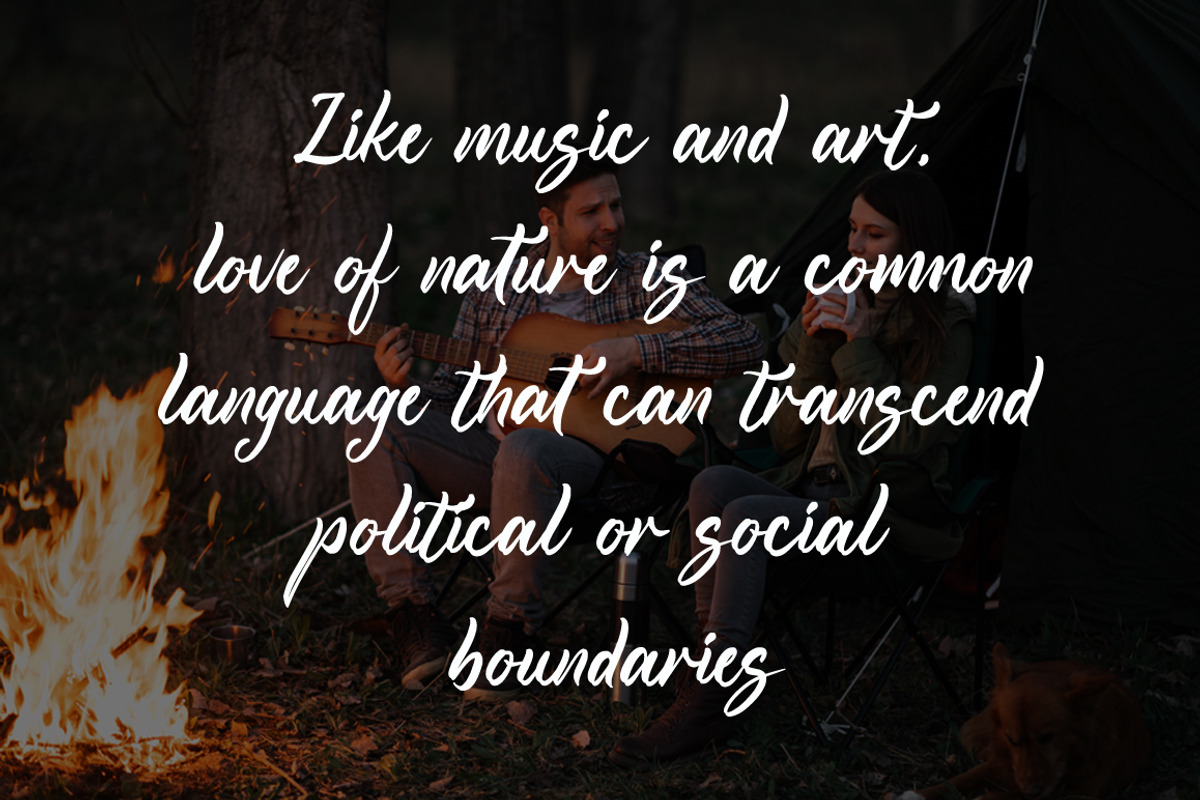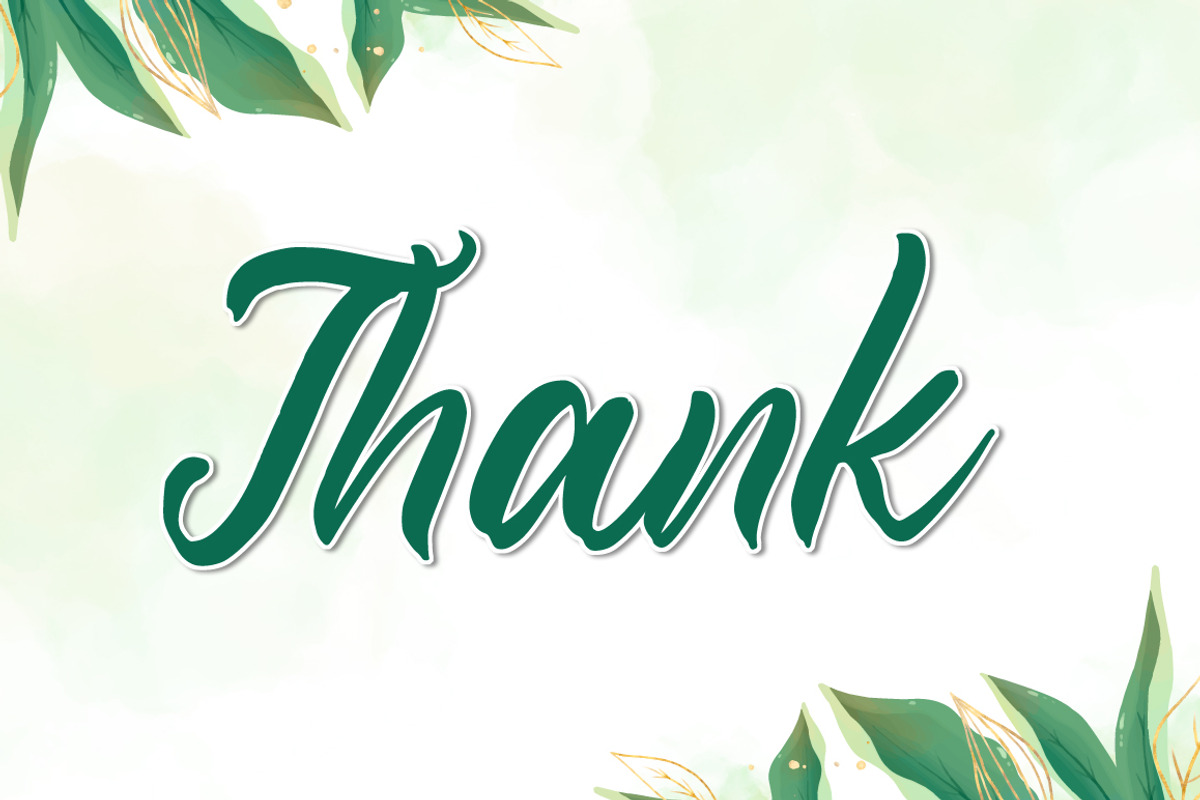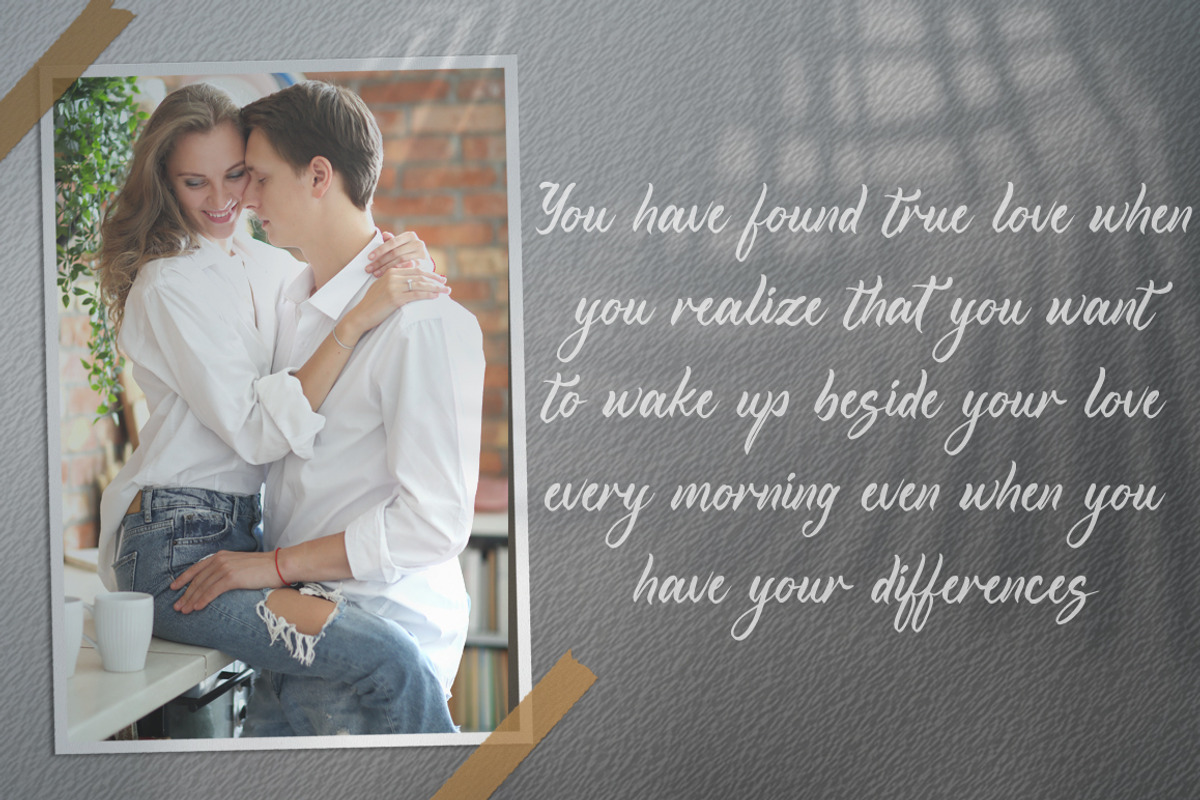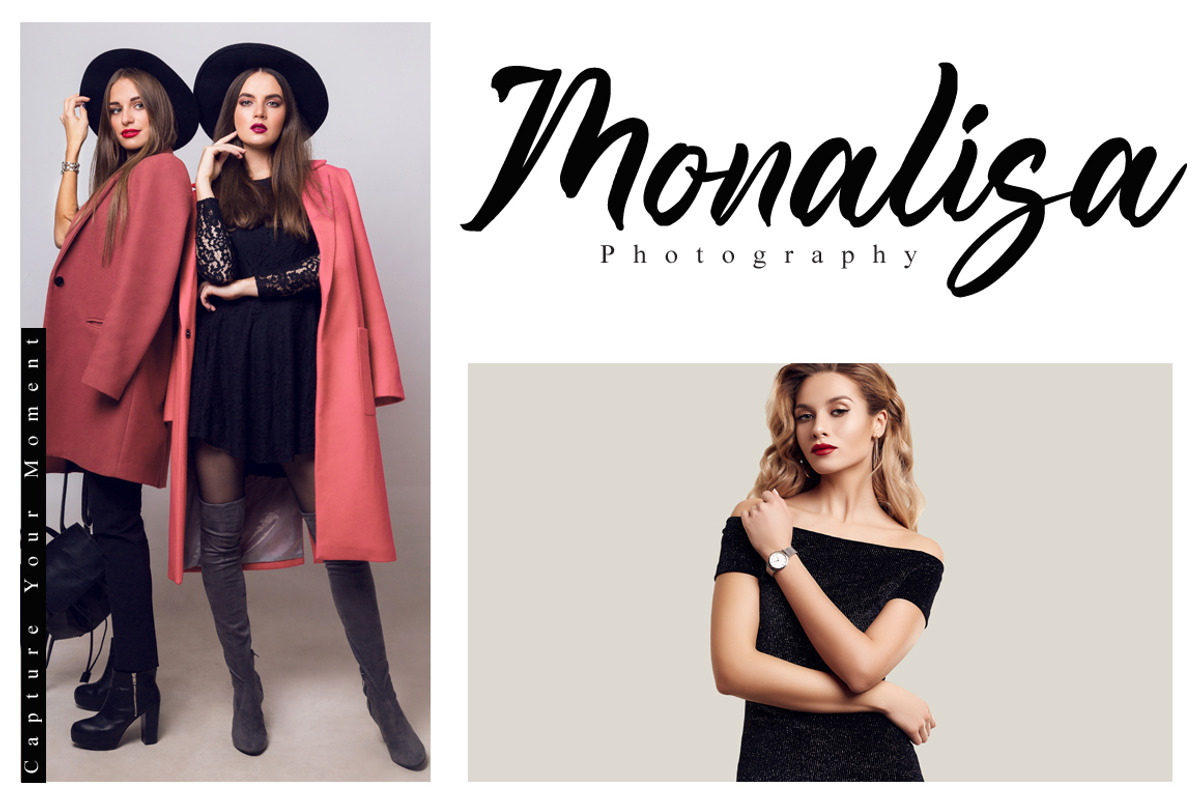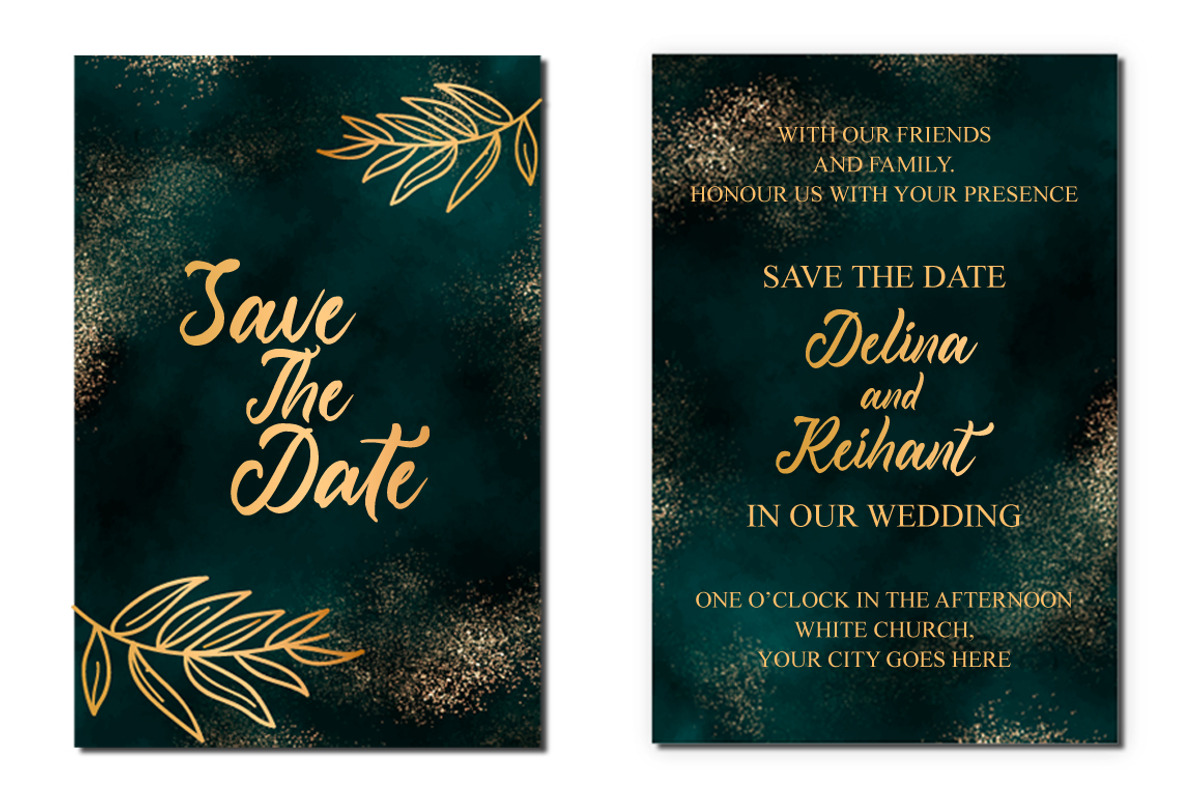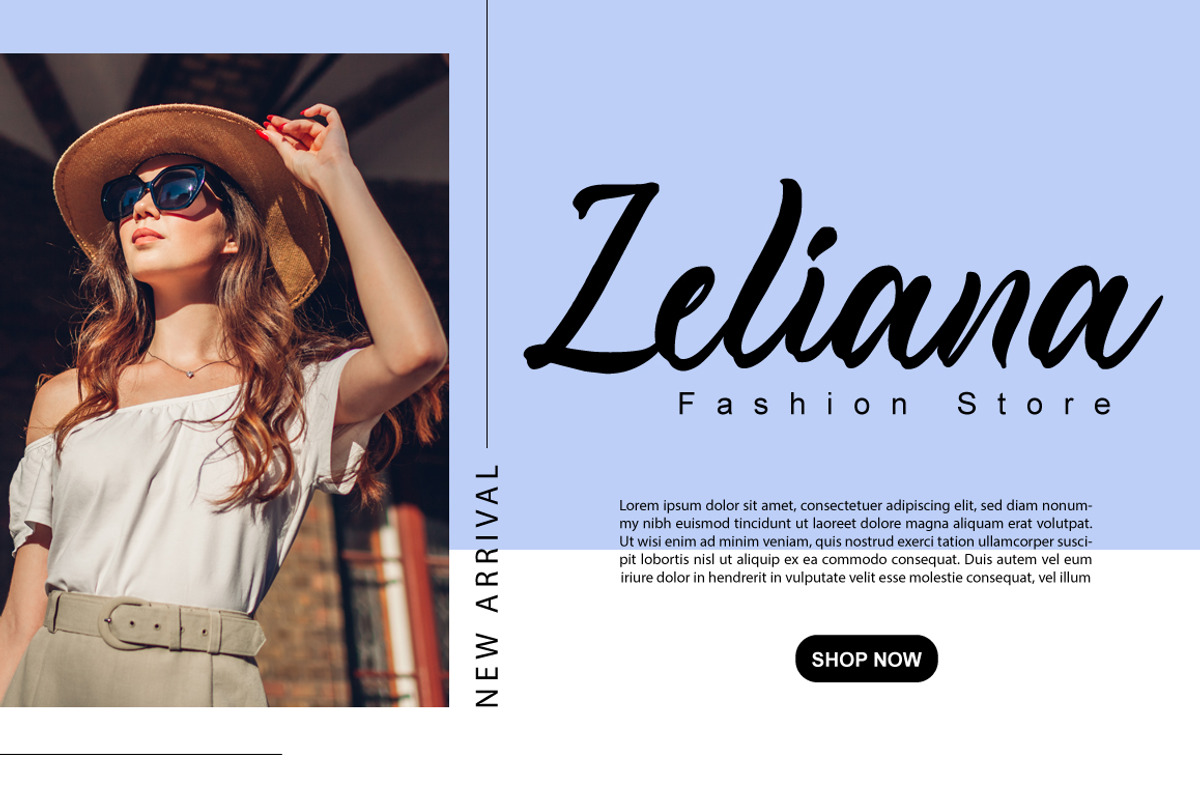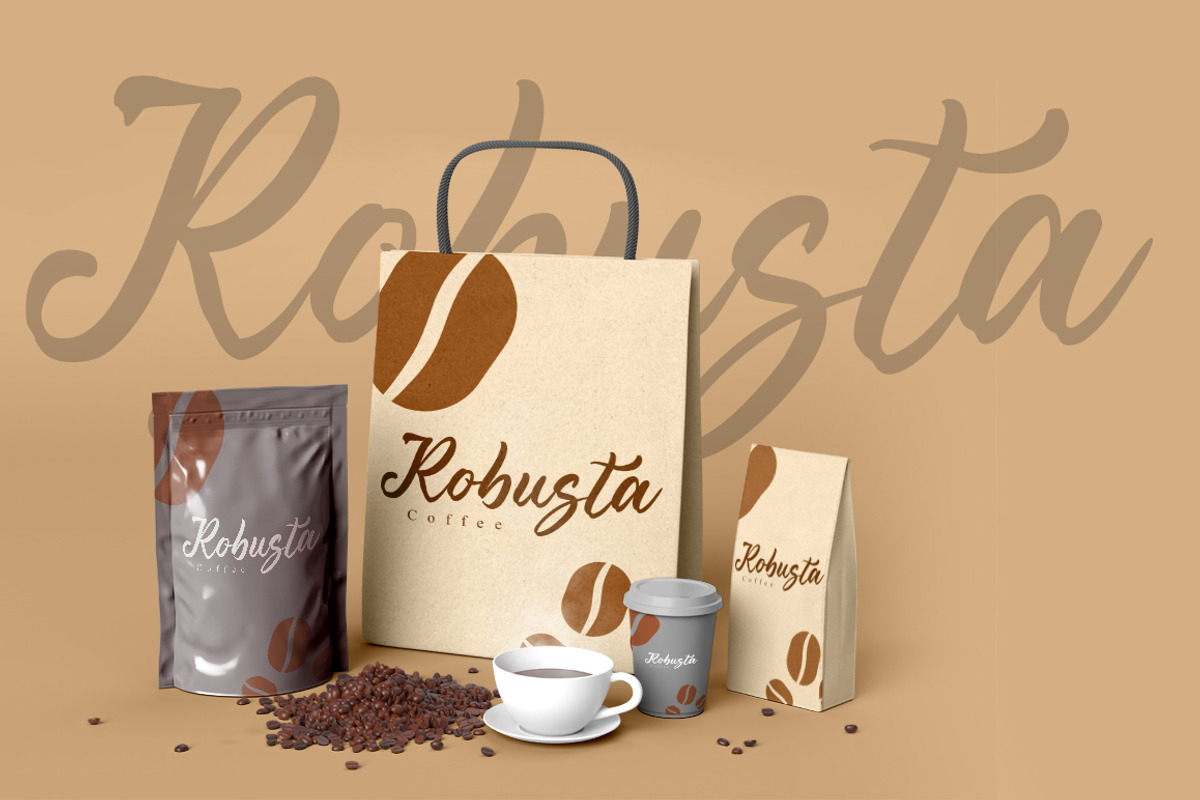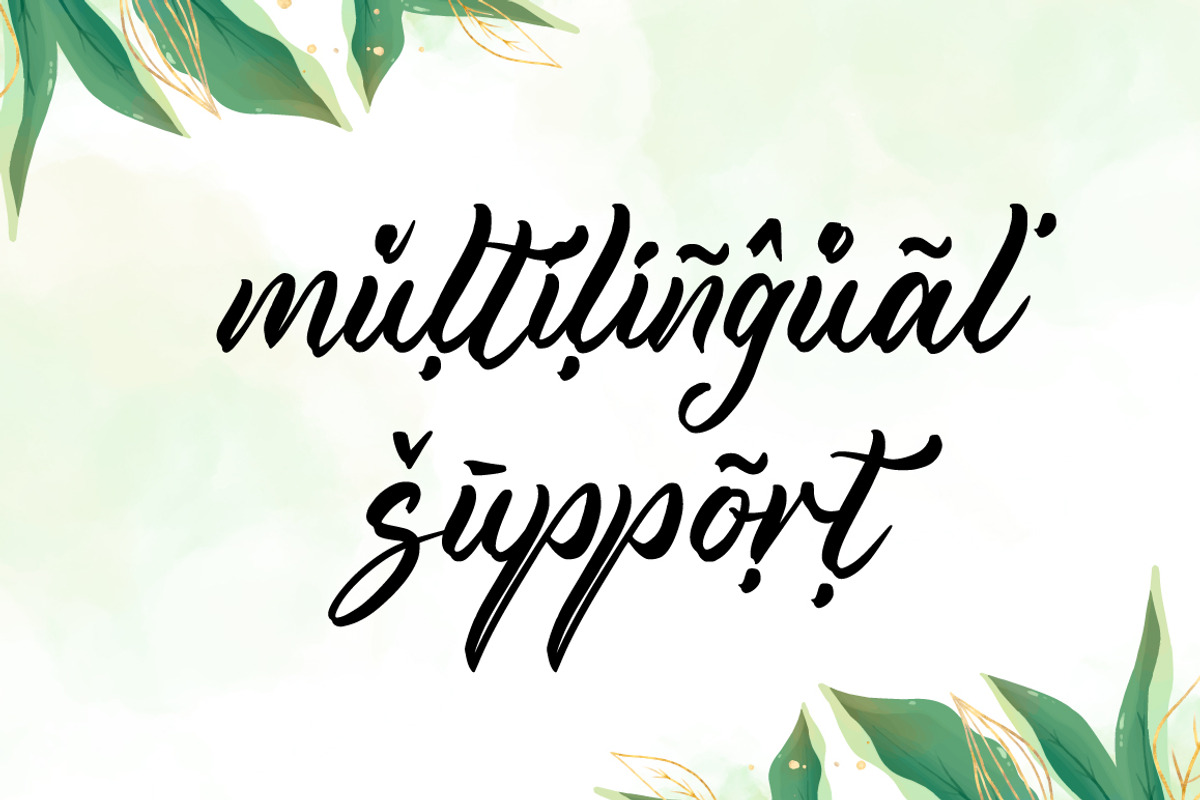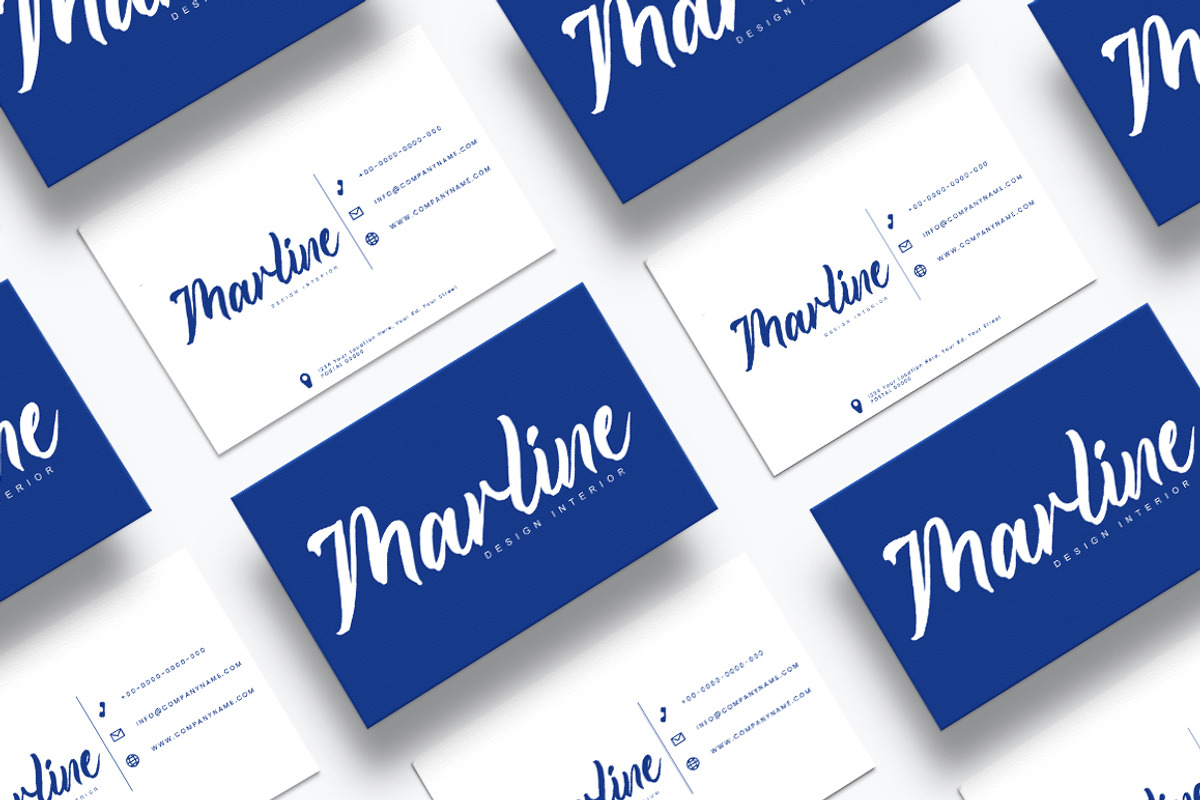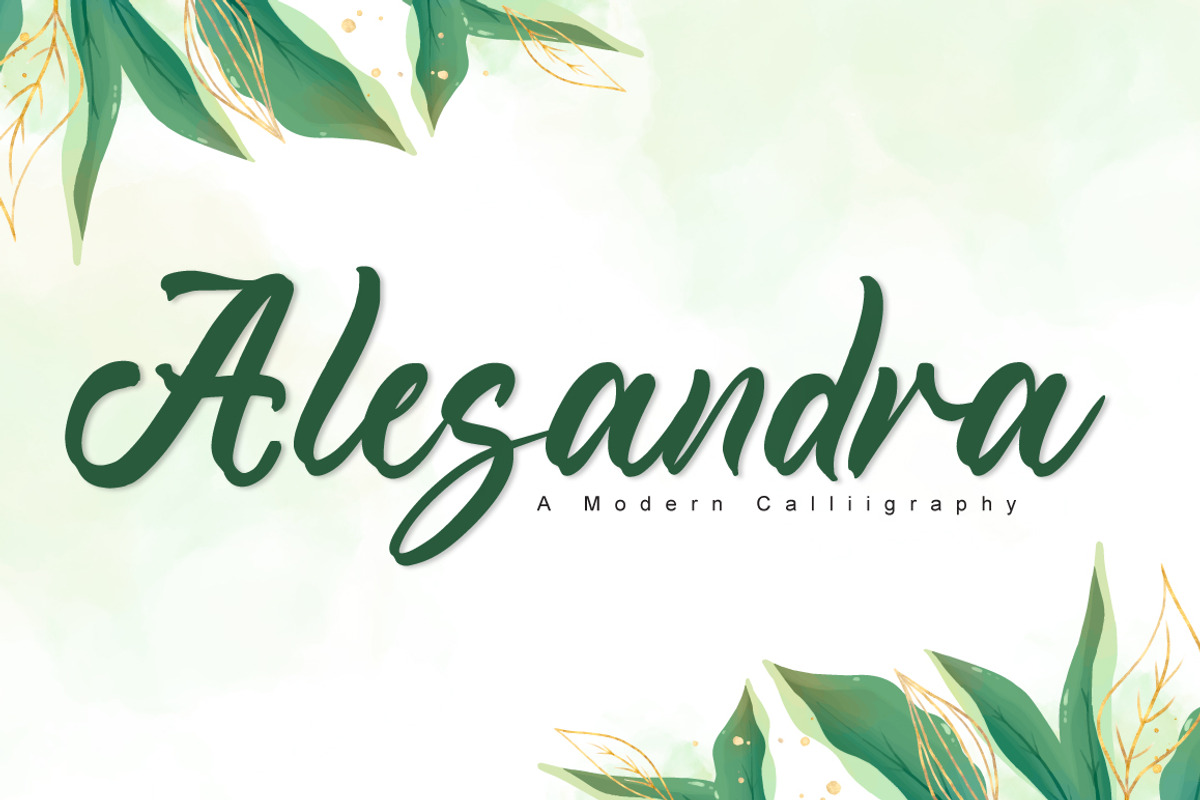
Alesandra a Modern Calligraphy
Alesandra is a lovely and delicate script font that exudes elegance and class. This font was particularly crafted for those who need a beautiful and refreshing look to their designs.